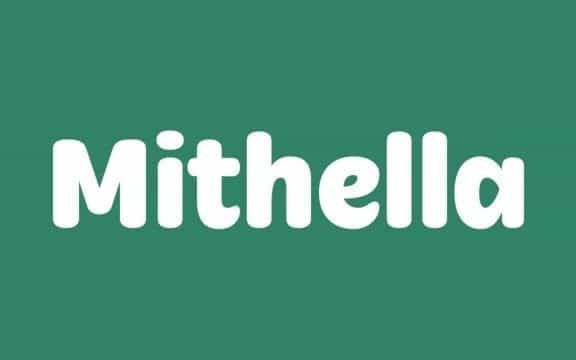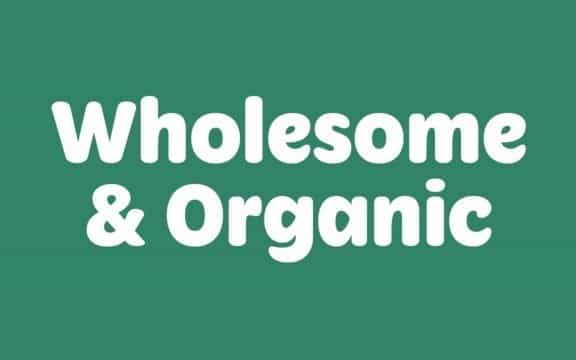
Mithella is a sans serif font family that has a nice touch. Some letters, especially linear ones, look normative as other rounded sans serifs, but the difference can be seen clearly in curved letters so that it gives a pleasant impression for each series of words.